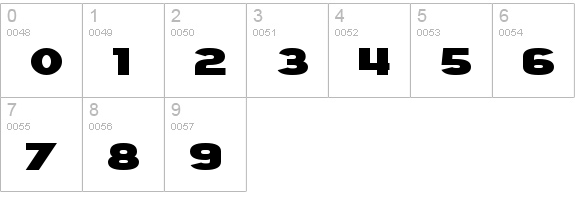
SF Juggernaut Bold Font Details
SF Juggernaut Bold is a strong, high-contrast variant in the SF typeface family \xE2\x80\x94 well suited to headlines, attention-grabbing titles, and strong calls-to-action.
SF Juggernaut Bold is a powerful and dynamic typeface that exudes strength and resilience. Its bold and sturdy letterforms are meticulously designed to command attention and dominate any design project. With its striking presence and commanding presence, SF Juggernaut Bold is perfect for headlines, titles, and branding materials that require a bold and impactful statement. What makes SF Juggernaut Bold even more remarkable is that it is available for free! Yes, you heard it right. This incredible font can be freely downloaded at FontsMarket.com, where you can access a plethora of high-quality fonts for your creative endeavors. Whether you are a designer, a student, or simply someone looking to add a touch of boldness to your projects, SF Juggernaut Bold is the perfect choice. The versatility of SF Juggernaut Bold extends beyond just its boldness. Its clean and modern design ensures legibility at any size and on any medium, making it suitable for both print and digital applications. From posters and banners to websites and social media graphics, SF Juggernaut Bold will make your message stand out with its bold strokes and confident presence. Don't miss out on the opportunity to enhance your designs with this exceptional font. Download SF Juggernaut Bold for free at FontsMarket.com and unlock a world of possibilities. Let your creativity soar as you wield the power of this font to create impactful and unforgettable designs. Embrace the boldness and let SF Juggernaut Bold elevate your projects to new heights.